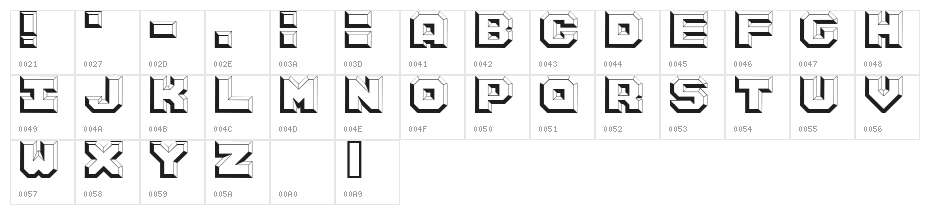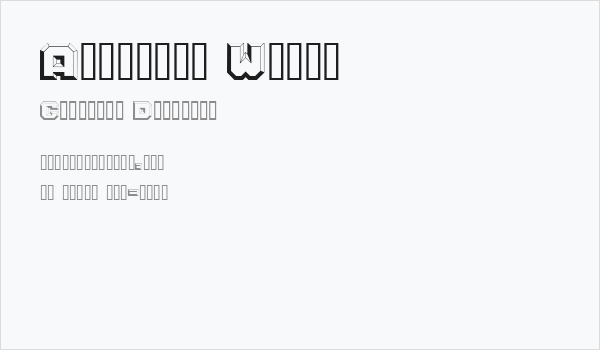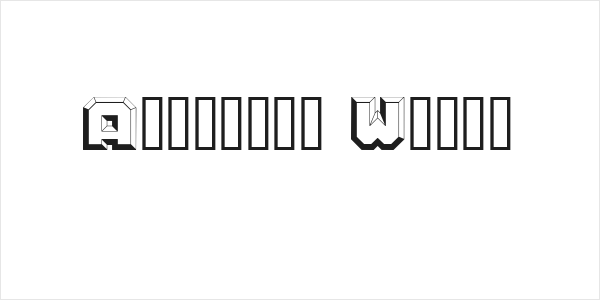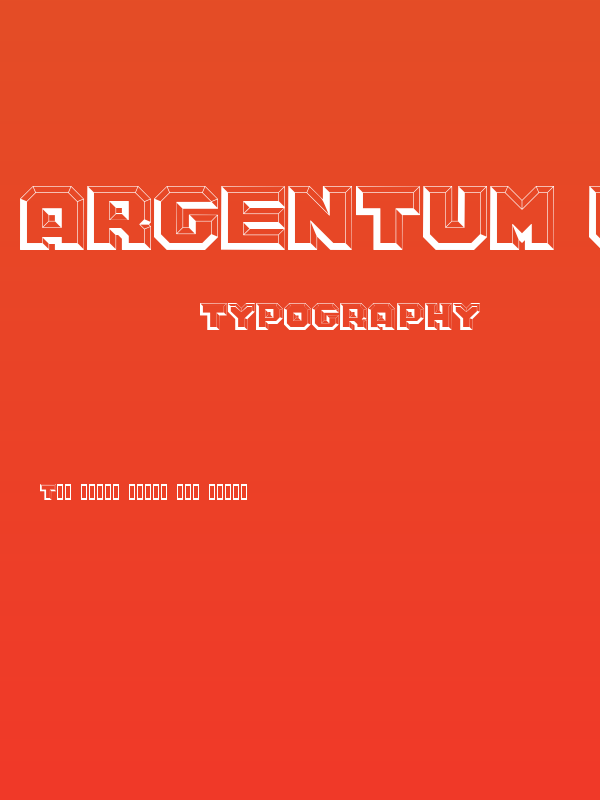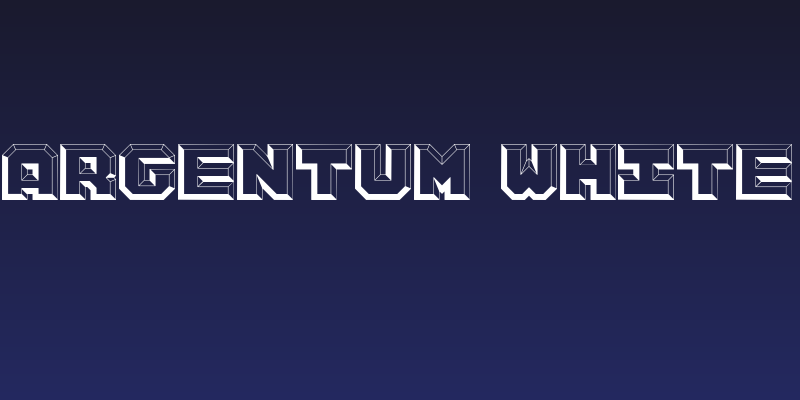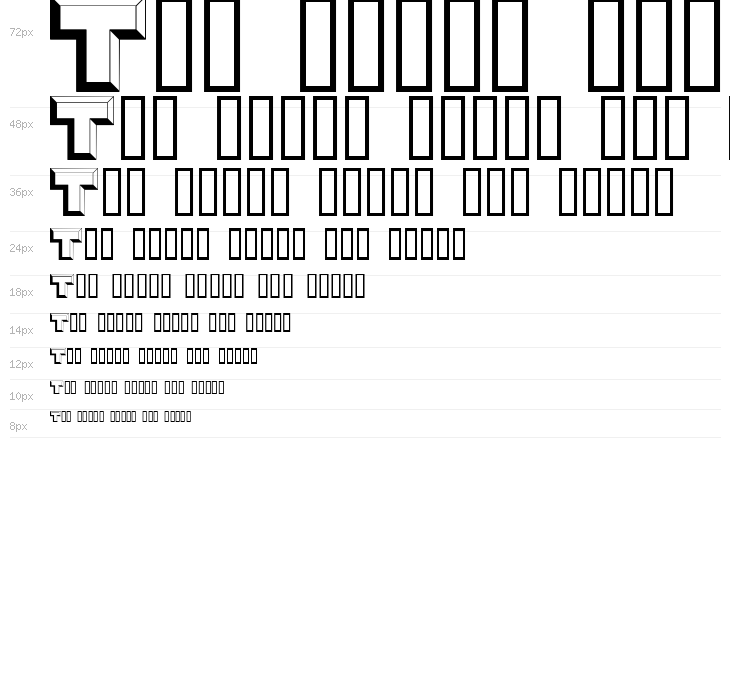
Argentum White Font
Argentum White Description
This font features a bold, three-dimensional design with a strong geometric influence. The uppercase letters are characterized by their blocky, angular shapes, giving them a robust and industrial feel. The font's unique style is accentuated by the use of shading and outlines, creating a sense of depth and dimension. The characters are well-defined, with sharp edges and a consistent stroke width that adds to the overall boldness. This font is particularly eye-catching and would stand out in any design project that requires a strong visual impact.
| Proposed Projects | Ideal for use in posters, logos, headlines, and any design that requires a strong, impactful font. |